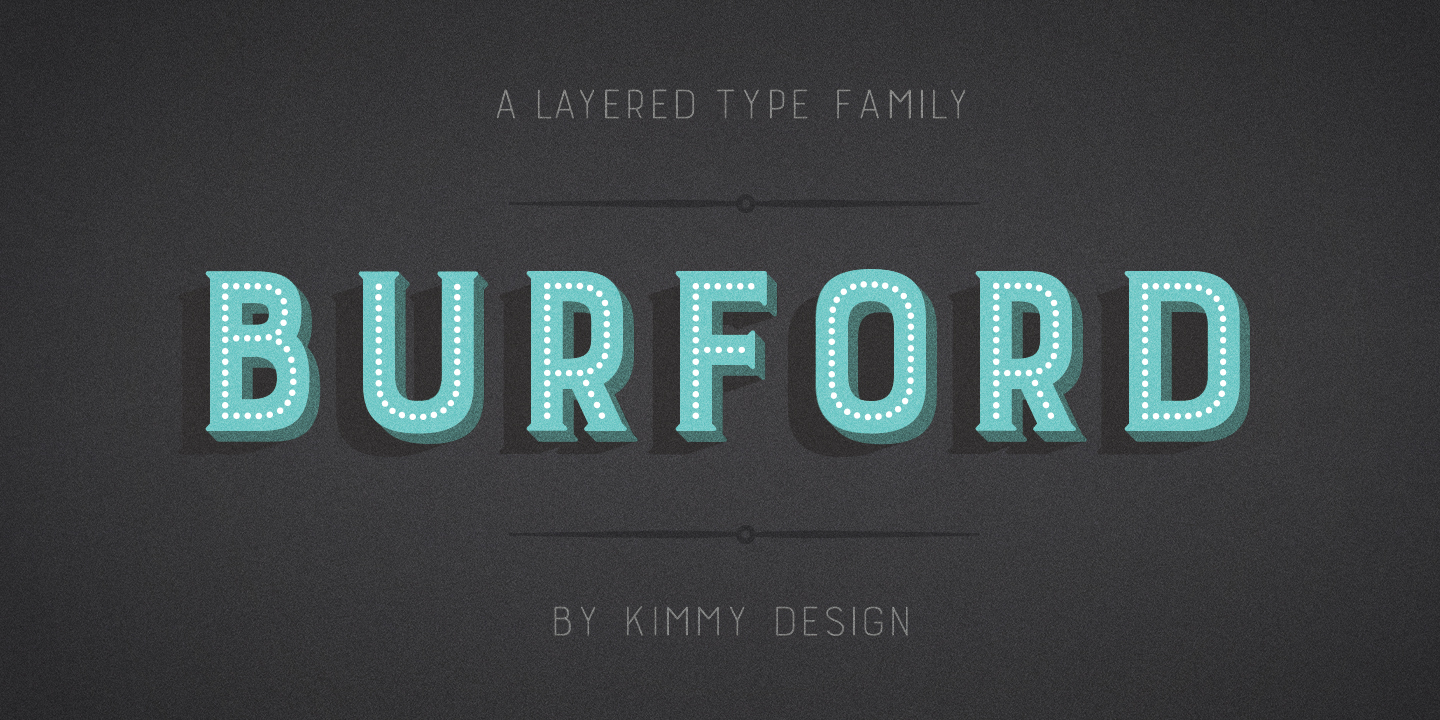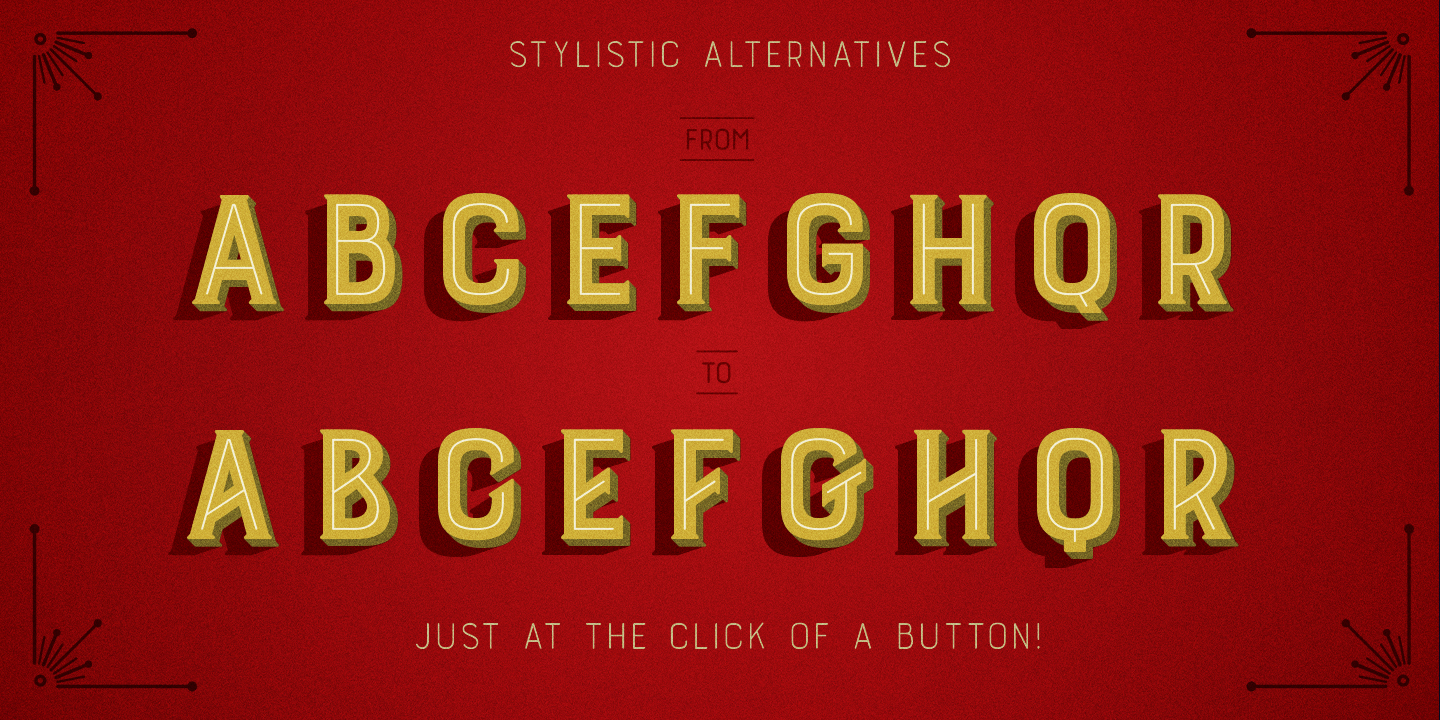
Burford Pro Family (18 fonts)
From Kimmy Design
The Burford Pro package comes with all 18 layering fonts including 5 base layers, 3 top layers, 5 bottom layers and 2 sets of graphic elements. They are strategically made to build on top of each other, creating a cohesive and easy to use layer-based family. Each font also comes with a set of Stylistic Alternatives for letters A C E F G H P Q R.
The Burford Extras set uses all basic keyboard characters - around 100 total elements per set. They are designed to go specifically with Burford and complement its varying styles perfectly. The set includes: banners, borders, corners, arrows, line breaks, catchwords, anchors and many more! --- Kimmy Kirkwood